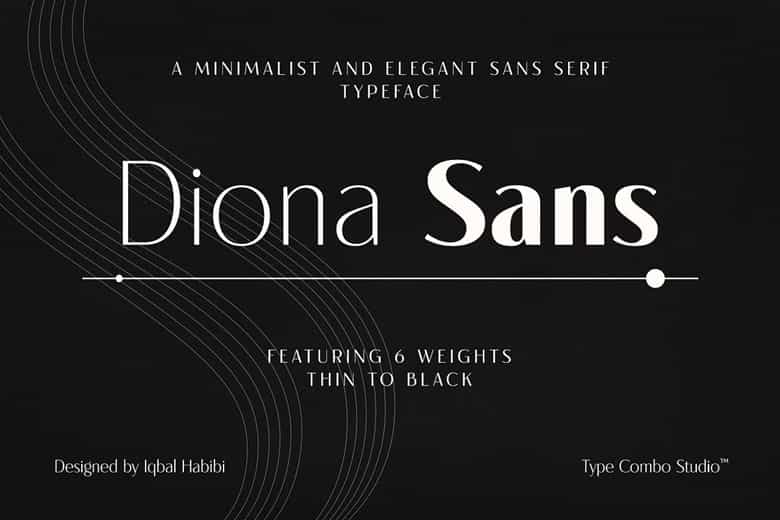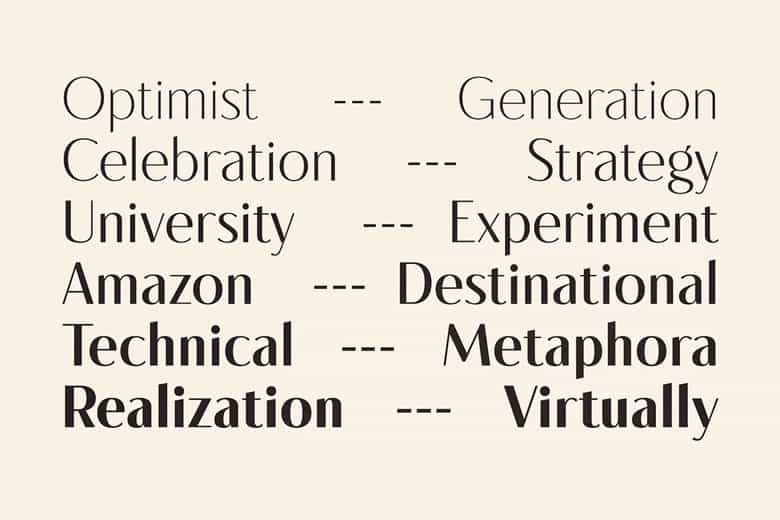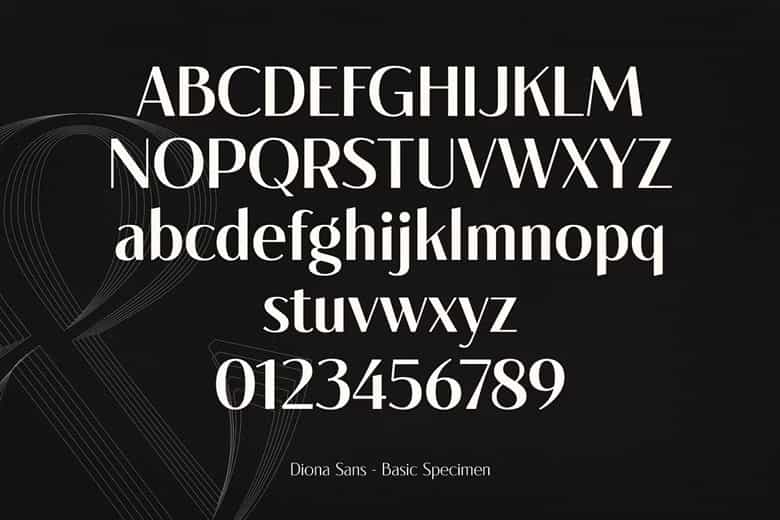
It is a sans serif font which is designed clean minimalist and elegant with alternate characters and standard ligatures. It features 6 weights: Thin, light, regular, medium, bold and black. Its Extended Latin characters cover 75 plus languages.